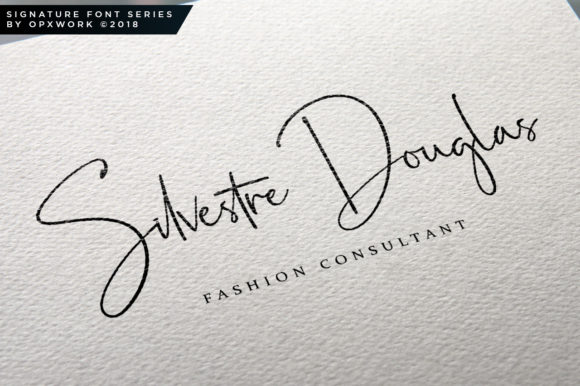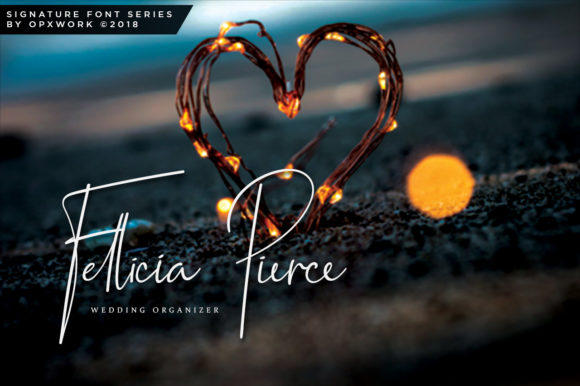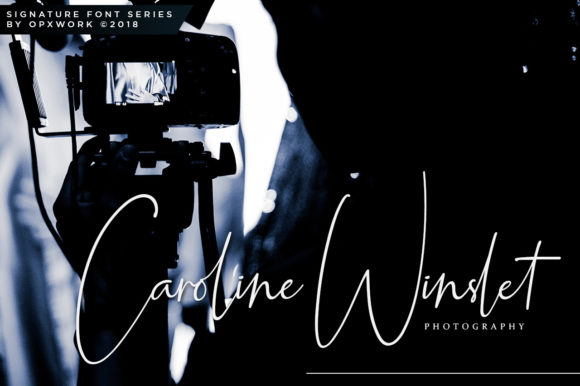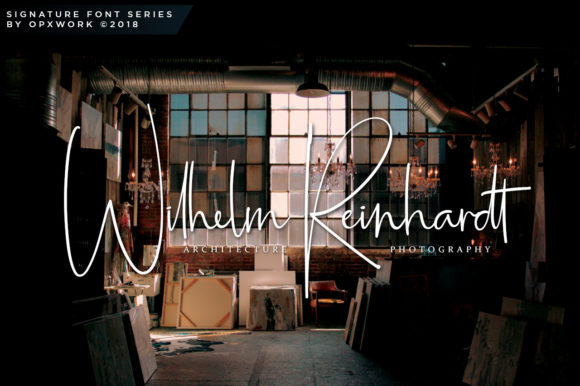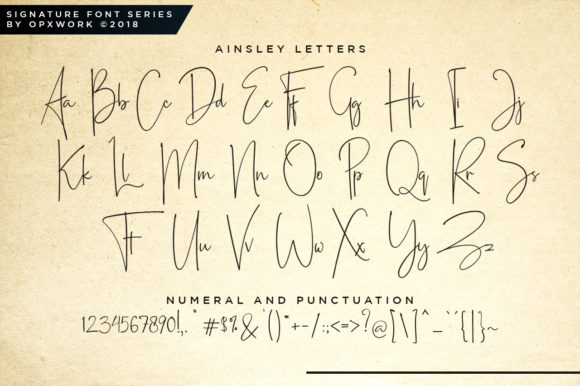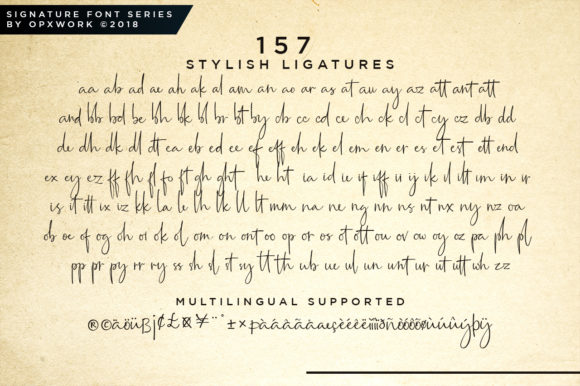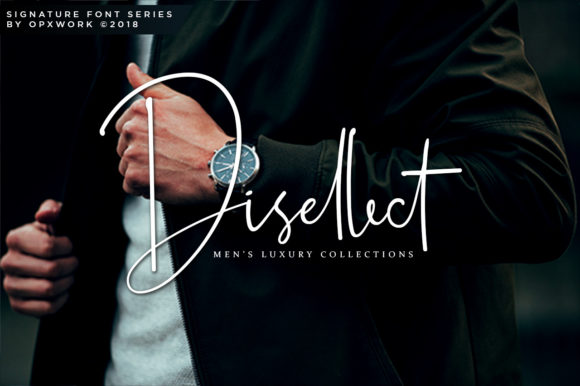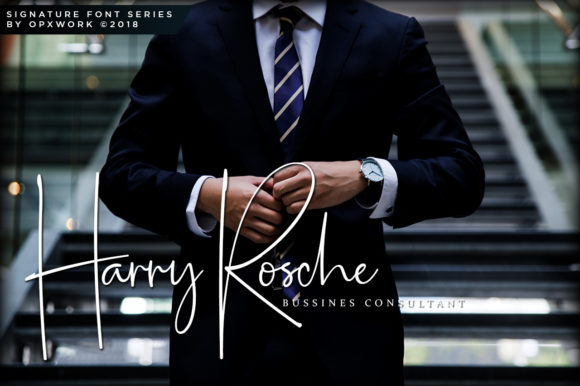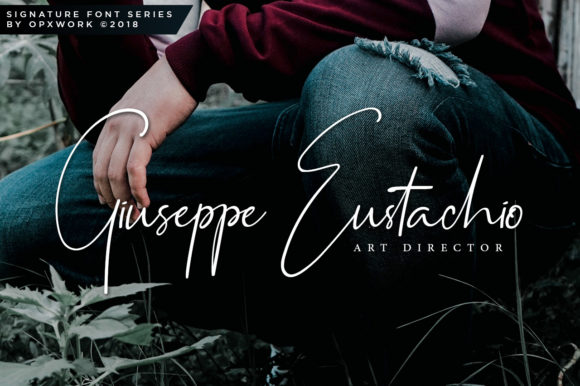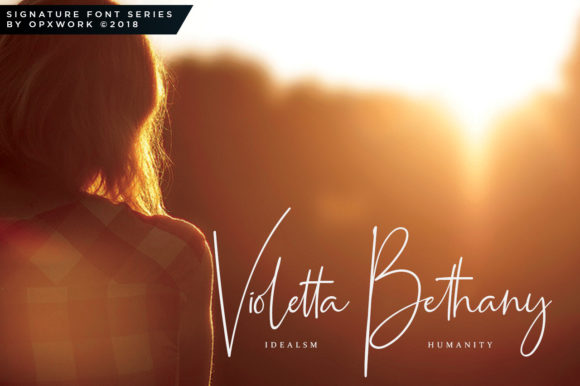
Ainsley Font
About Ainsley Font
The Ainsley is a beautoful signature font. It has a natural feel and elegant and artistic nuances which makes it perfect for creating unique designs!